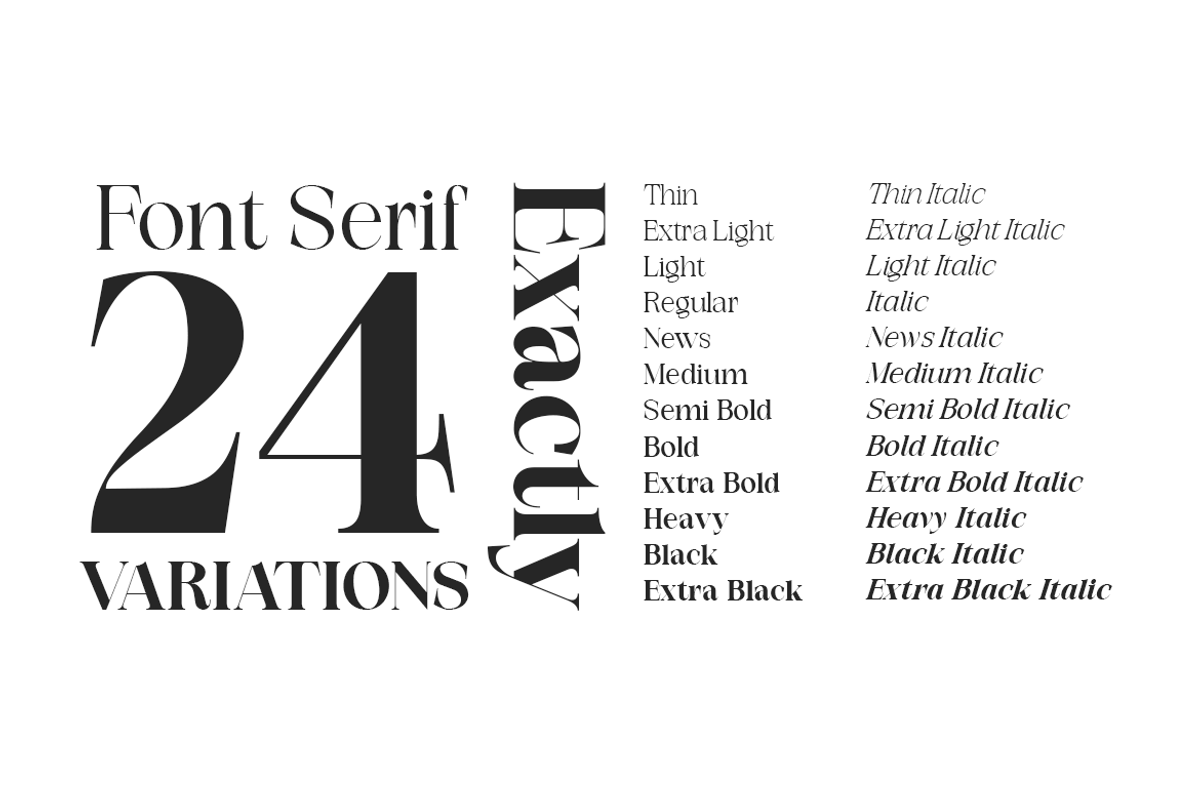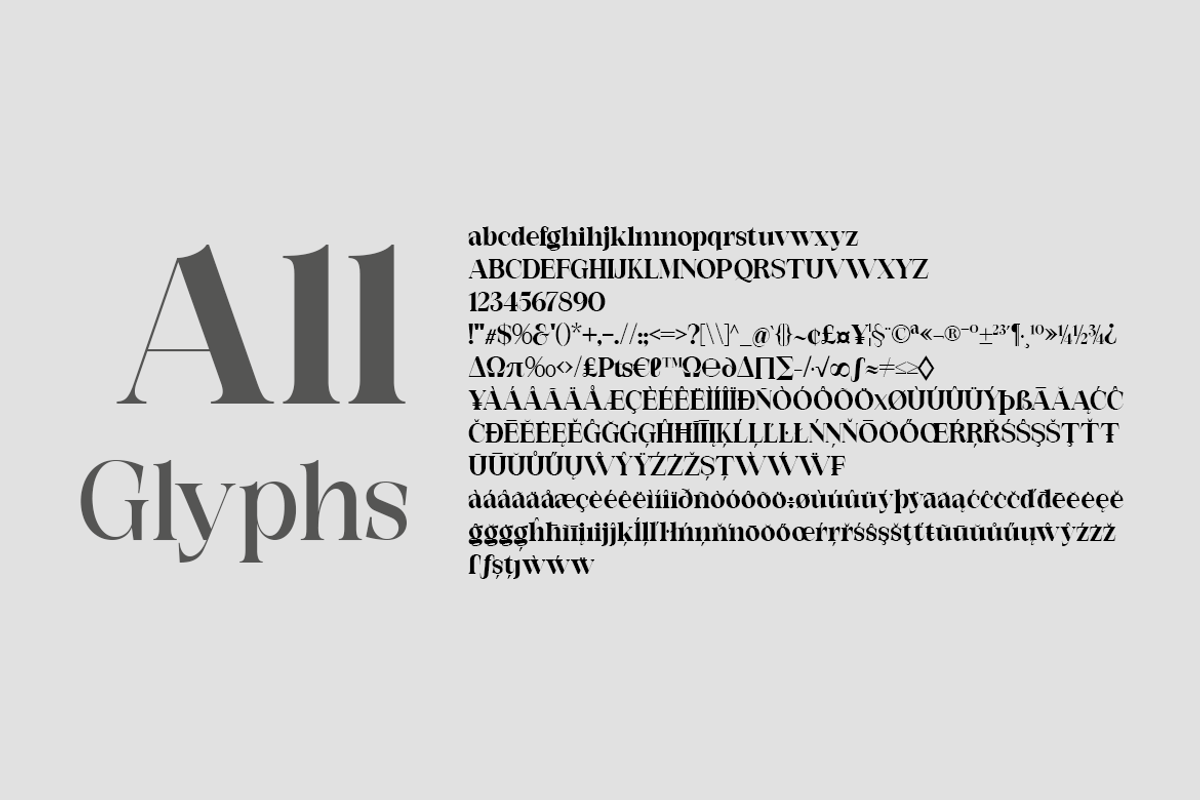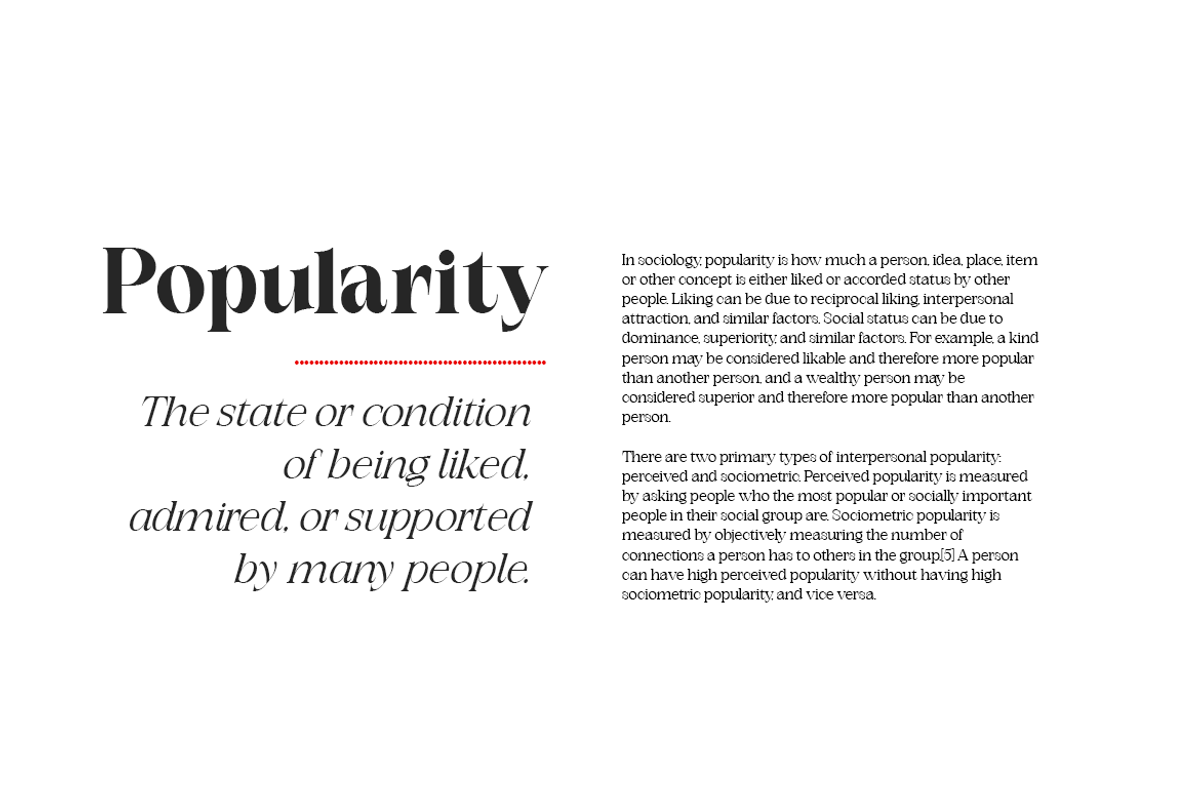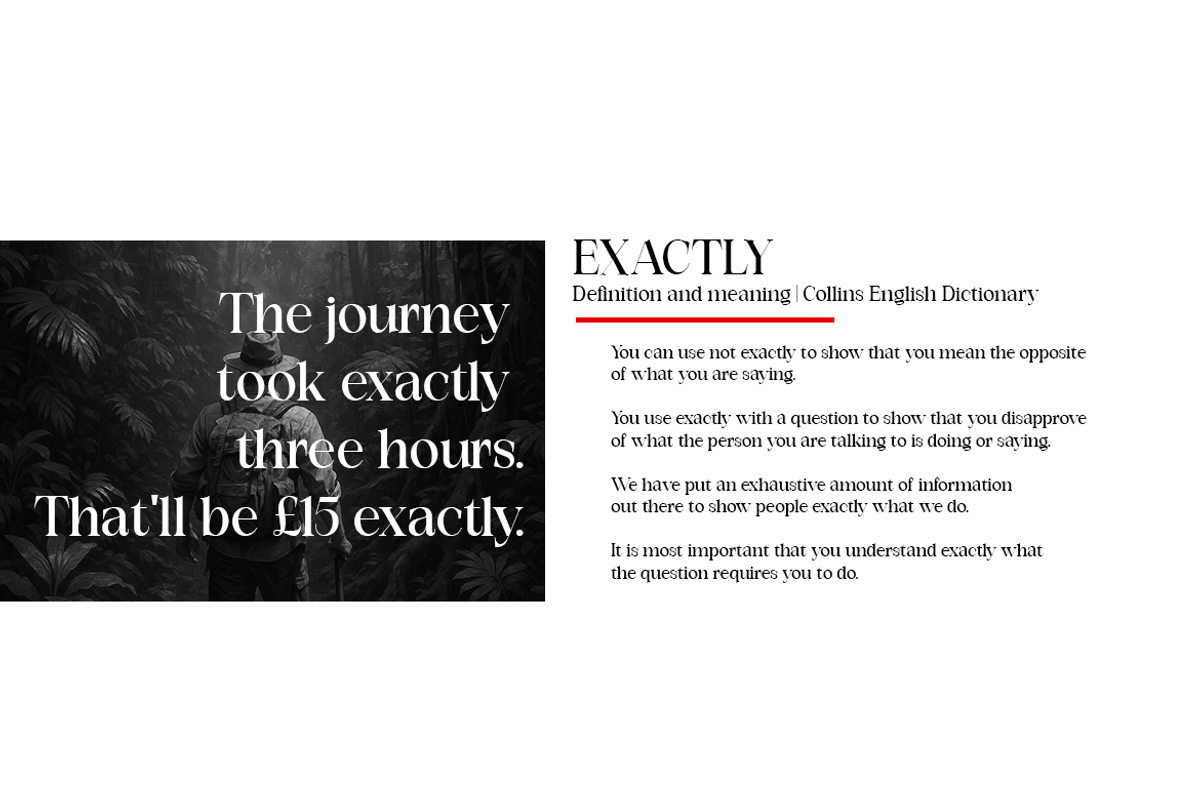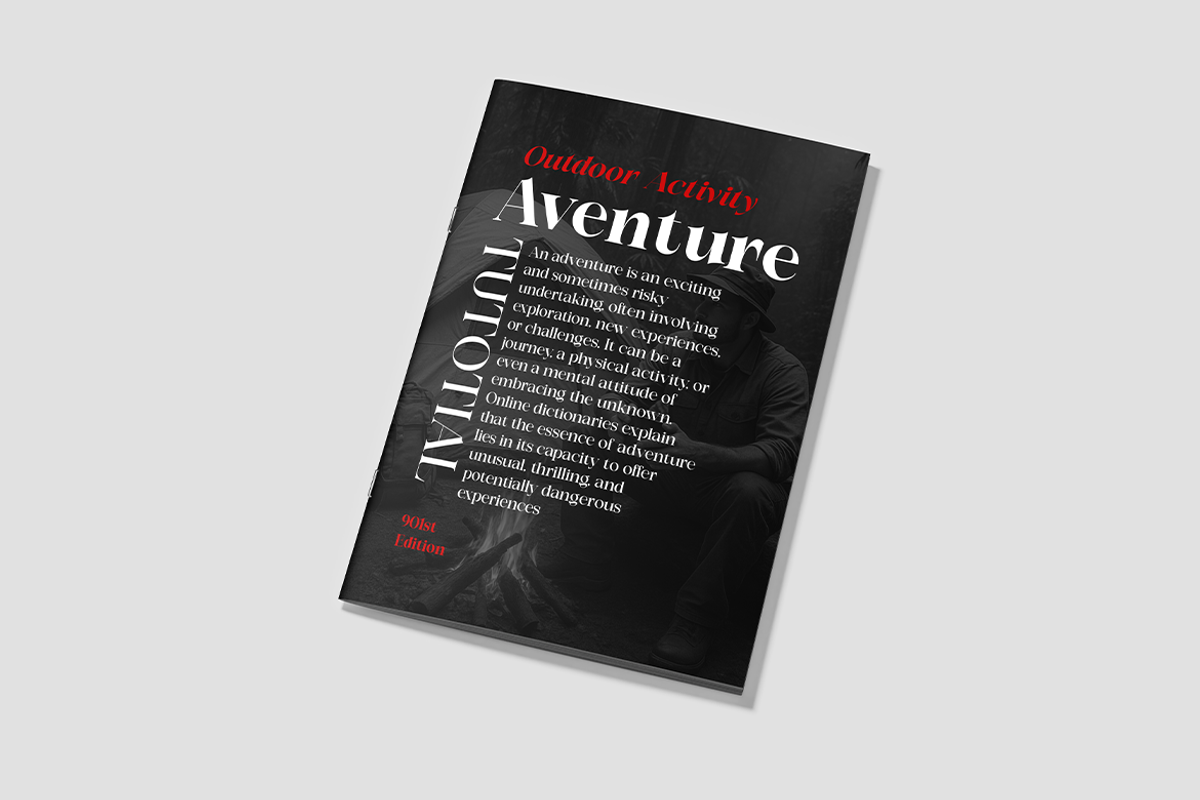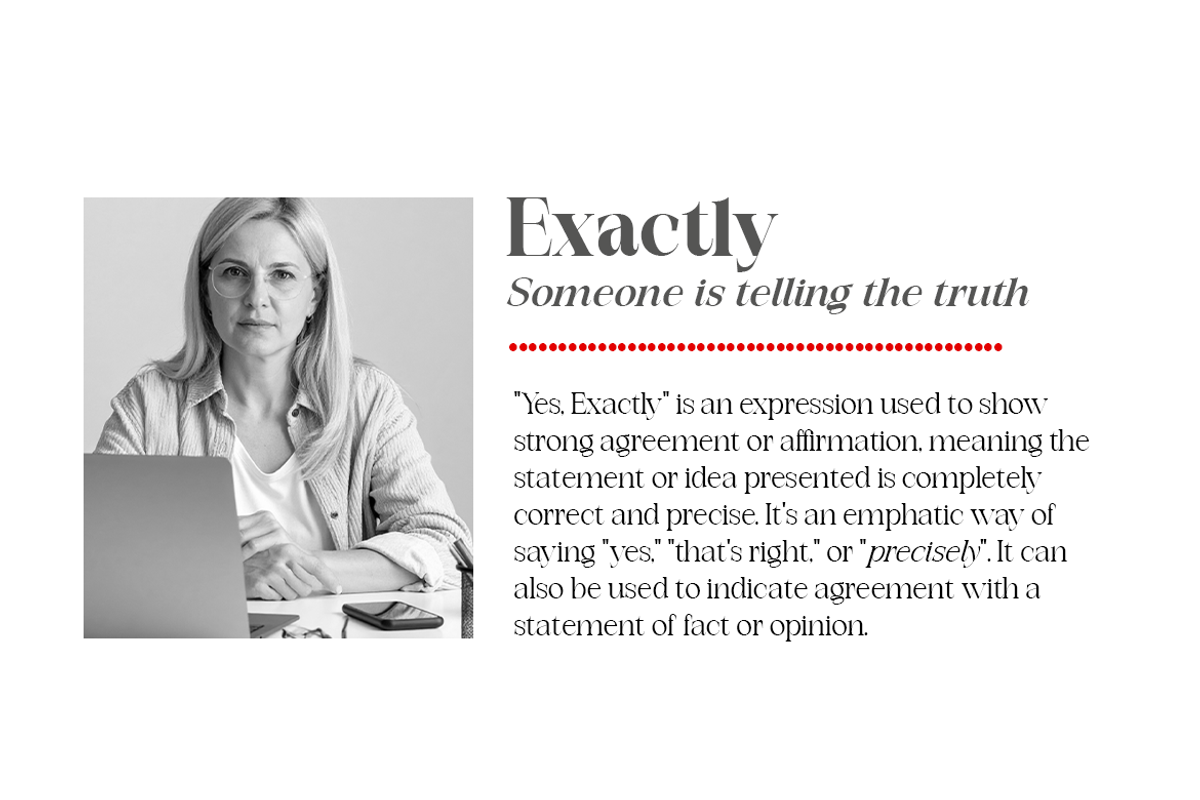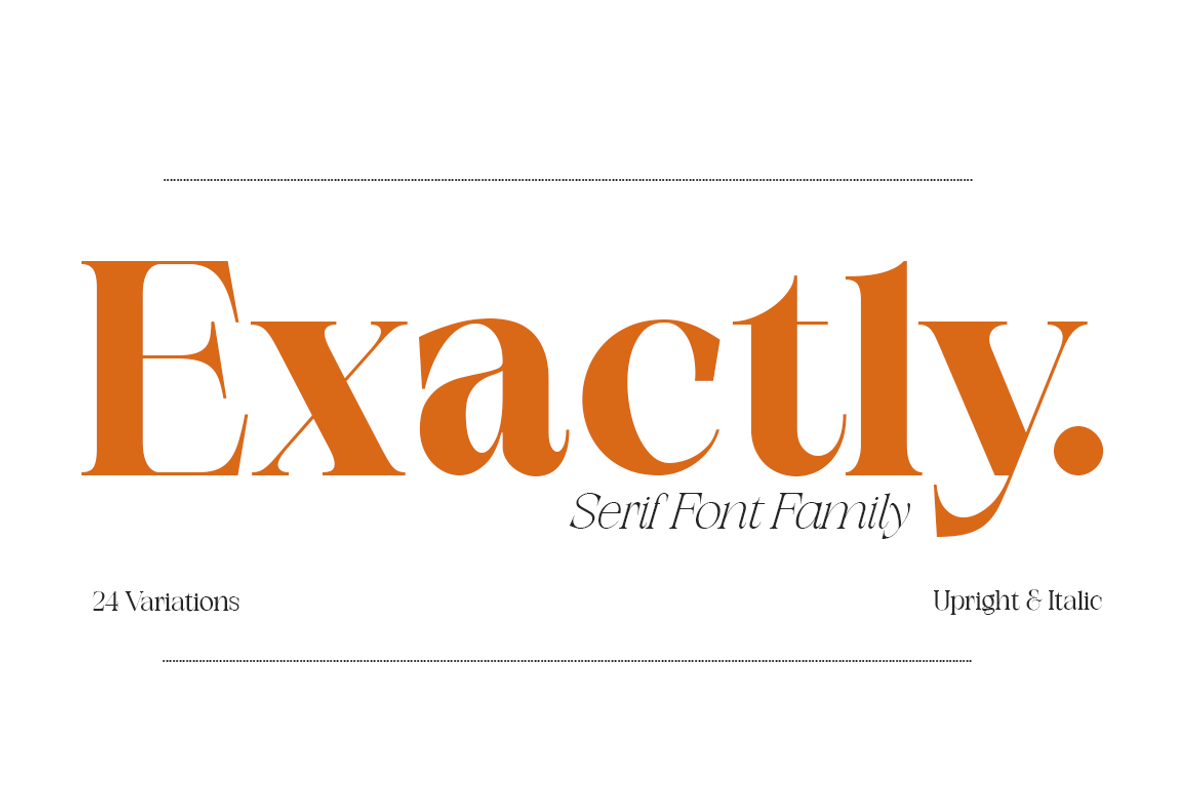
Exactly // Font Serif Family
Exactly has a perfect balance between the familiar and the unexpected. With Exactly , designers can use this font for various needs in creating elegant design work.
please note, Exactly is a bold and expressive serif family font that adorns the pages of top fashion magazines and publications in print media and web pages. Exactly flows with vintage charm that supports contemporary design.
Exactly is a variation of letters with a slim style ranging from thin to thick. Exactly comes in 24 variations, including; 12 Regular upright fonts; 12 regular italic fonts.
This letter looks amazing in logos, magazines, and films. This letter will be perfect for branding, headlines, captions, paragraphs, and posters. Various thicknesses allow you to experiment with various applications. This letter is made to give an impression without sacrificing its beauty and readability